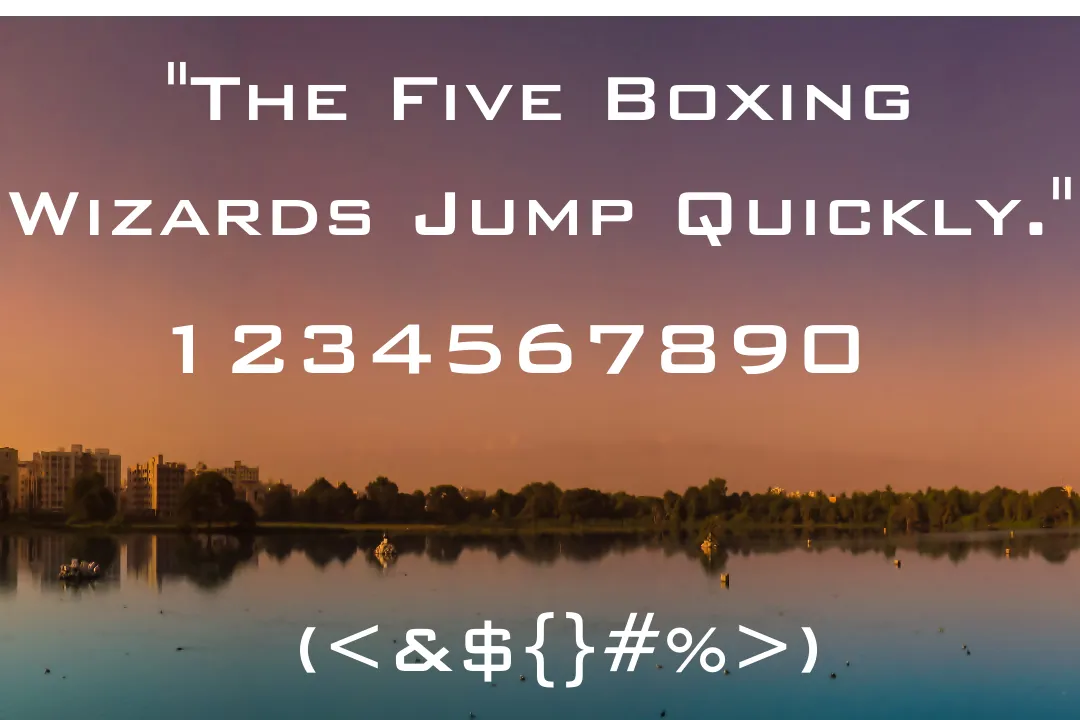
Bank Gothic Font
Bank Gothic Font is under the category of Geometric Sans serif typeface family. It was designed by a notable graphics designer named Morris Fuller Benton.
In 1930, American-type founders published this awesome typeface in the font world. This typeface consists of different types of characters such as uppercase, lowercase, numeric, symbols, and multiple types of special elements.
Uses of Bank Gothic Font
In this section, I will tell you about this typeface, and where and how you can use it for your design. You will find that it has beautiful characters that are perfect for branding projects, posters, banners, and more.
This font character is one of the oldest and most valuable. A lot of designers use it for multiple projects such as logo designs, headings, and titles.
This is a bold geometric Sans Serif family that has been captured in a very special place with Nexa Font styling. The combination of these two fonts will make your project more attractive.
What type of font is Bank Gothic?
Bank gothic is under the category of basic sans serif typeface family. It has an elegant and attractive texture look appearance for the viewers.
What is the best font for Gothic?
The best and closest font of this typeface is Mark OT Font.
Where can I use Bank Gothic Font?
This typeface is perfectly used for titles, headlines, movies, and advertisements projects.